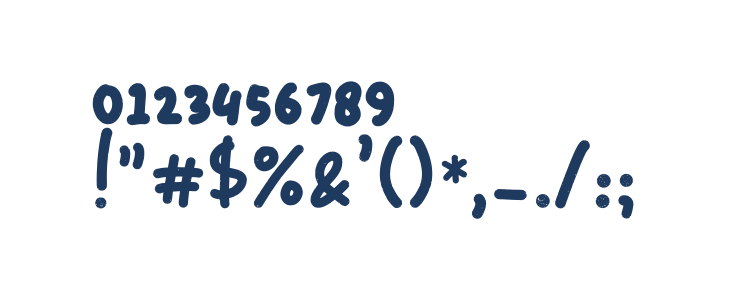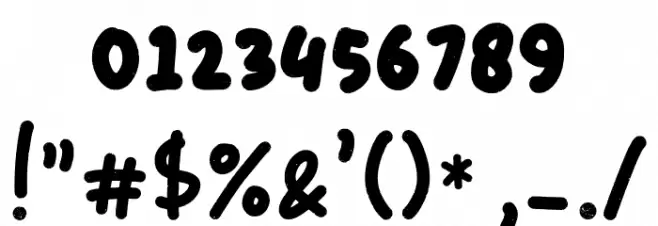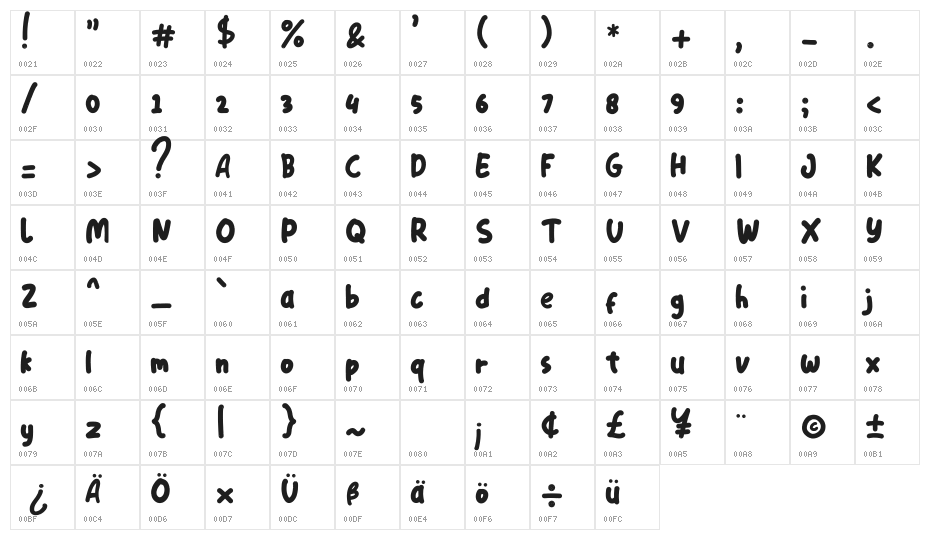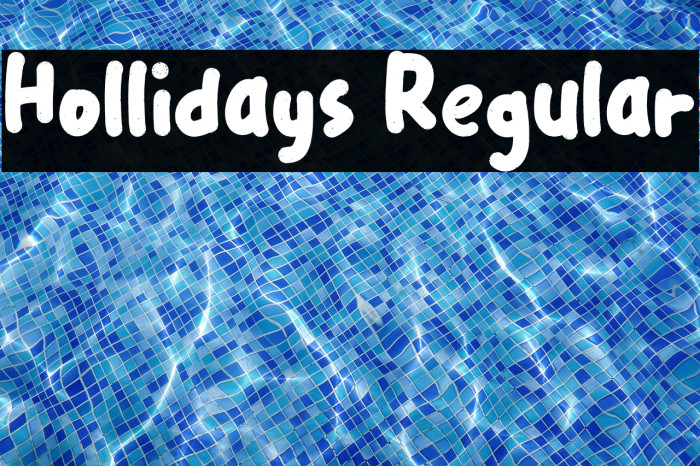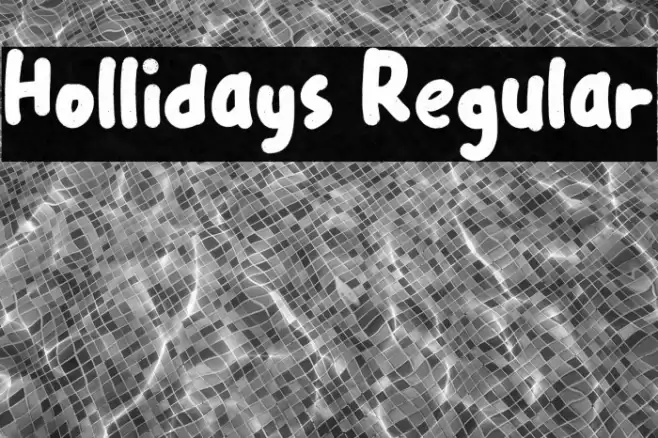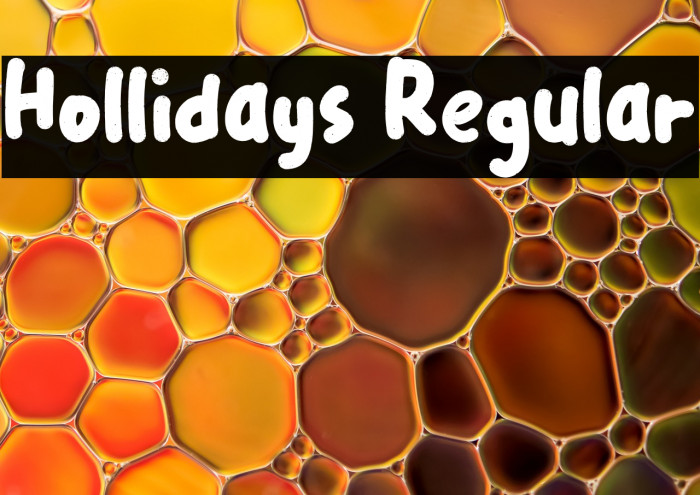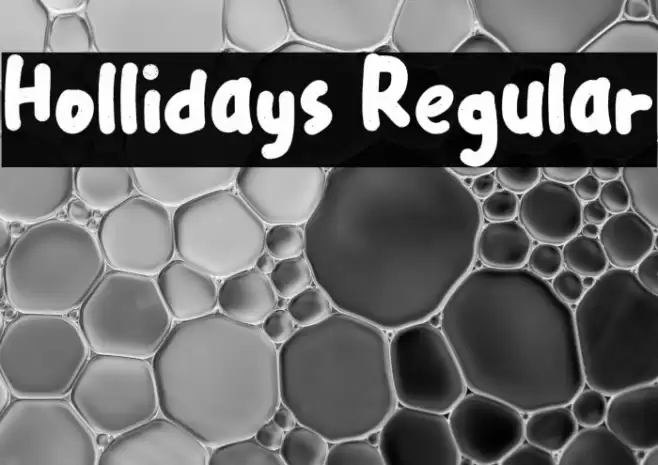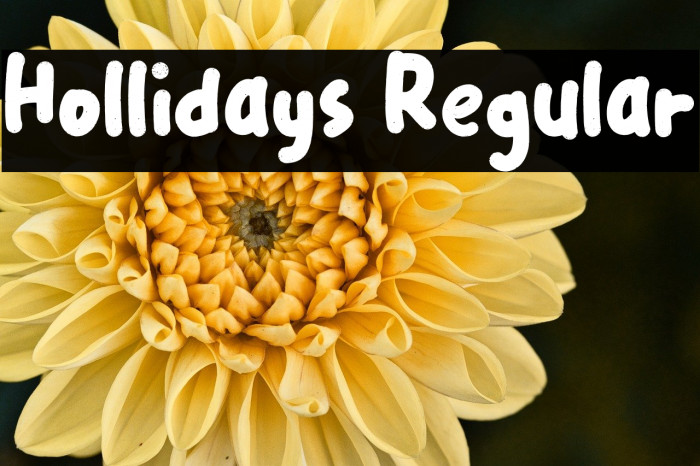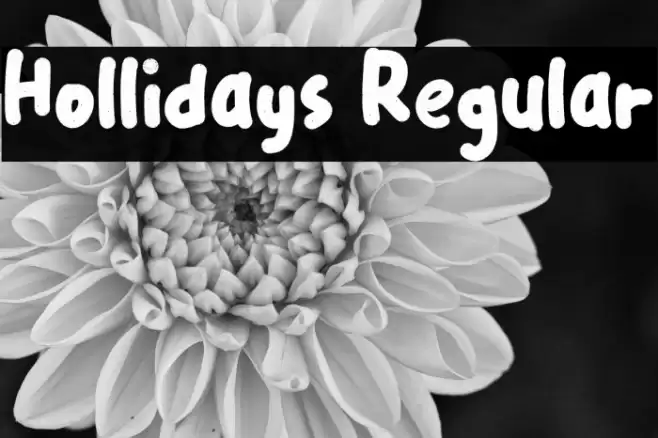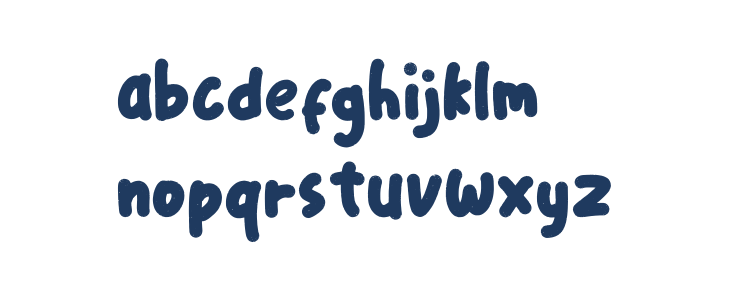
Hollidays Regular Font
Hollidays Regular Description
This font features a playful and bold handwritten style, characterized by its thick, rounded strokes and casual appearance. The letters are slightly irregular, giving it a lively and informal feel. The uppercase and lowercase letters maintain a consistent weight, while the numbers and special characters complement the overall design. This font's unique style makes it ideal for projects that require a personal touch or a fun, approachable aesthetic. Its boldness ensures readability while adding a distinctive flair to any text.
| Proposed Projects | Ideal for greeting cards, children's books, playful branding, and social media graphics. |